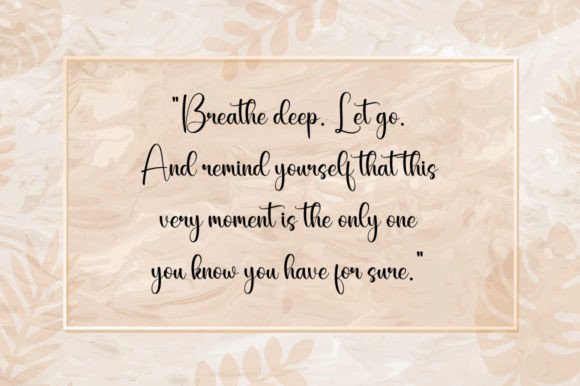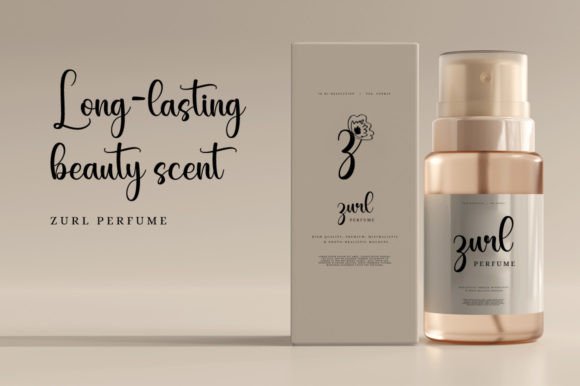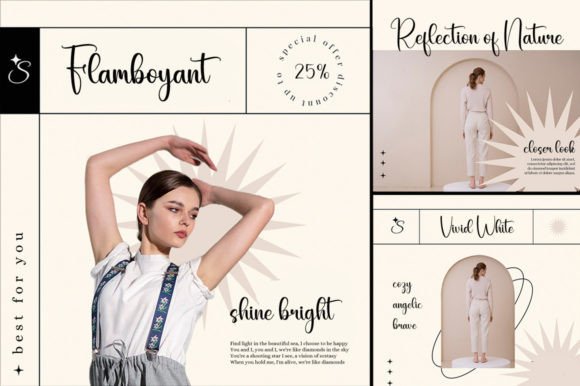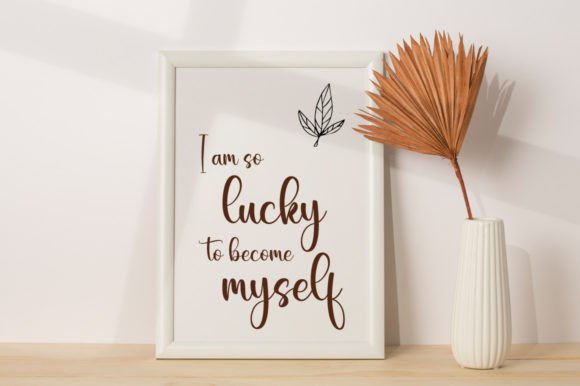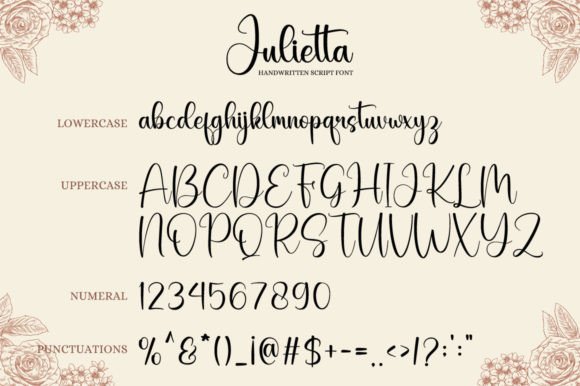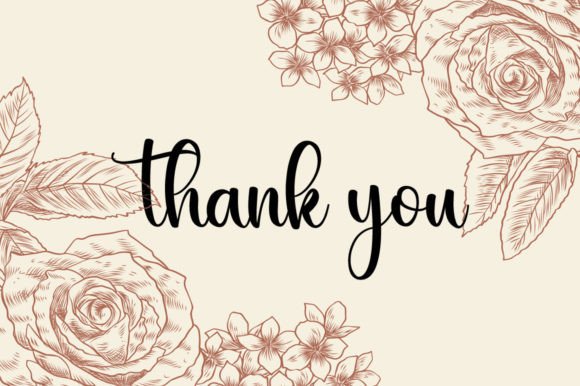
Julietta Font
Julietta Handwritten Font – Lovely and Timeless Script
The Julietta Handwritten Font is a charming and elegant typeface designed to bring beauty and warmth to your creative projects. With its smooth handwritten strokes and graceful flow, this font combines timeless style with modern usability. Whether you’re working on logos, quotes, or branding materials, it ensures your designs stand out with sophistication.
A Handwritten Script with Elegant Flow
The Julietta Handwritten Font blends traditional handwritten elegance with a fresh modern appeal. Its balanced characters and smooth curves make text appear polished and unique while remaining highly readable. Because of this adaptability, it works beautifully across print and digital designs.
Perfect for Logos and Branding
One of the most popular uses of the Julietta Handwritten Font is in logos and branding projects. Its timeless flow makes it perfect for creating distinctive and memorable brand identities. At the same time, it looks stunning on quotes, greeting cards, and posters, where an elegant handwritten style enhances the overall design.
The Julietta Handwritten Font adapts to many different creative uses. From wedding invitations and product packaging to digital artwork and social media content, it provides a versatile handwritten charm that feels timeless. Its flexibility ensures it will quickly become one of your most valuable fonts.
Why Designers Love Julietta Font
Designers appreciate the Julietta HandwrittenFont because it balances style with usability. Its handwritten strokes bring character and warmth, while its clean readability guarantees professional-quality results. This combination makes it a must-have font for personal and professional projects.
In summary, the Julietta HandwrittenFont is a lovely, timeless, and versatile script typeface. With its graceful handwritten design, quick installation, and wide usability, it is perfect for logos, quotes, invitations, and branding. Don’t miss the chance to download Julietta HandwrittenFont and add elegant handwritten beauty to your next creative project.